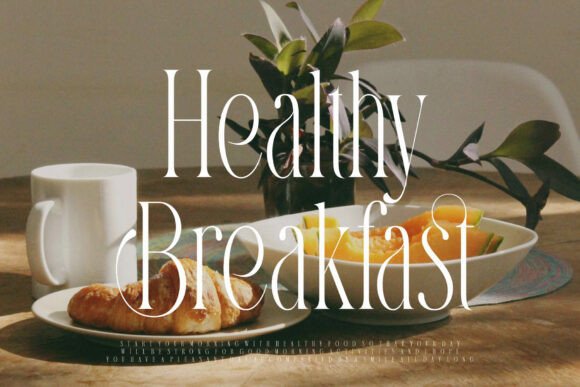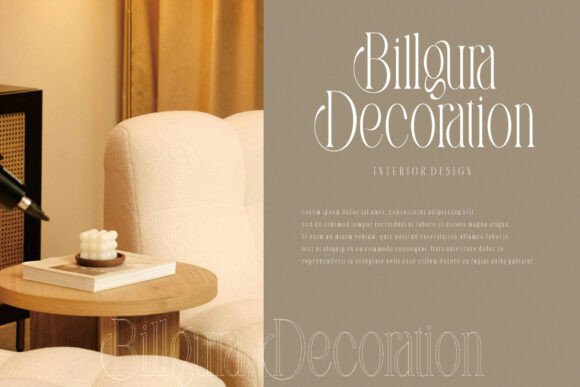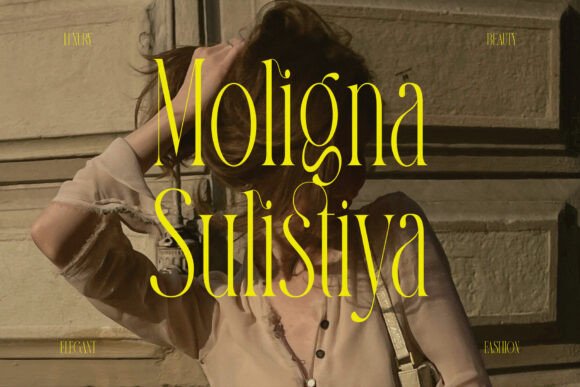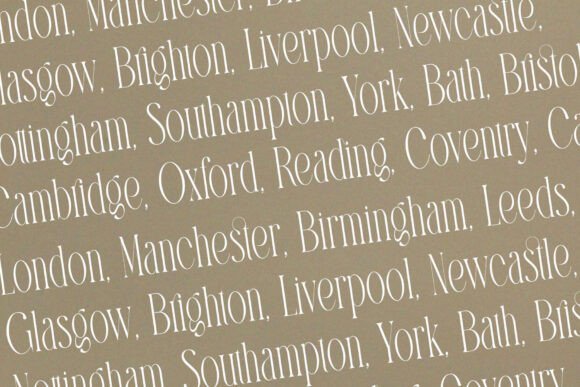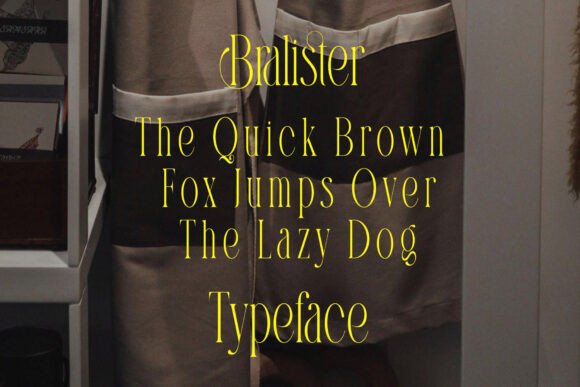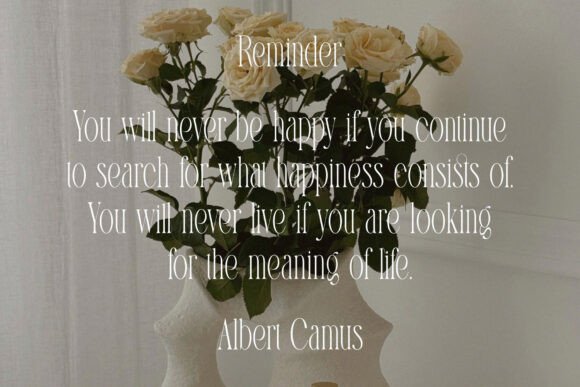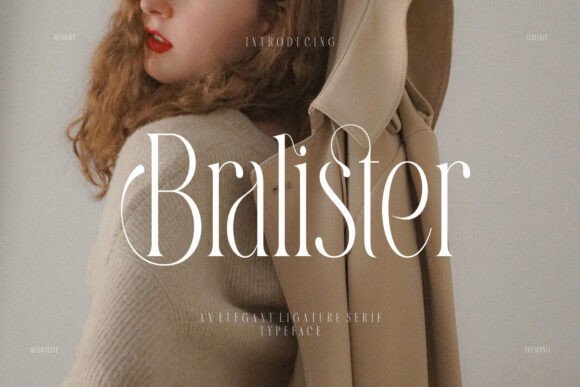
Bralister Font: Elevate Your Designs with Elegance and Sophistication
In the world of typography, a well-crafted font can make all the difference in elevating a design from ordinary to extraordinary. Introducing Bralister, an elegant ligature serif modern font that embodies the beauty of fresh blooms and timeless elegance. With its bold yet refined ligatures, Bralister stands out as a sophisticated and feminine typeface, perfect for upscale designs that demand a touch of refinement and natural grace.
The Beauty of Bralister
Bralister is a masterfully designed font that combines the charm of classic serif styles with a modern twist. Every letter feels intentional, with a soft and graceful presence that elevates any project it touches. The font’s elegant ligatures add a touch of sophistication, making it ideal for designs that require a high level of refinement. Whether you’re working on a floral arrangement, a fashion brand, or a high-end product, Bralister brings a level of elegance and poise that’s sure to impress.
Perfect for Upscale Designs
Bralister is specifically designed for upscale designs that demand a high level of sophistication. Its refined ligatures and classic serif style make it perfect for:
- Florals: Add a touch of elegance to your floral arrangements with Bralister’s beautiful ligatures and refined serif style.
- Fashion: Elevate your fashion brand with Bralister’s sophisticated and feminine typeface.
- High-end branding: Bring a level of refinement and natural grace to your high-end branding with Bralister’s elegant font.
What Sets Bralister Apart
So, what sets Bralister apart from other fonts? Here are a few key features that make it a standout:
- Elegant ligatures: Bralister’s bold yet refined ligatures add a touch of sophistication to any design.
- Classic serif style: Bralister’s classic serif style provides a sense of timeless elegance and refinement.
- Modern twist: Bralister’s modern twist sets it apart from traditional serif fonts, making it perfect for designs that demand a high level of sophistication.
Bringing Elegance to Your Designs
Bralister is more than just a font – it’s a design statement. With its elegant ligatures and refined serif style, Bralister brings a level of sophistication and refinement to any design. Whether you’re working on a logo, a brochure, or a website, Bralister is the perfect choice for designers and crafters who demand the best.
Why Choose Bralister?
Here are just a few reasons why Bralister is the perfect choice for your next design project:
- Unique and elegant: Bralister’s elegant ligatures and refined serif style make it a unique and elegant font that’s sure to stand out.
- Versatile: Bralister is perfect for a wide range of designs, from florals and fashion to high-end branding and more.
- Easy to use: Bralister is easy to use and pairs perfectly with a wide range of other fonts.
In conclusion, Bralister is a truly exceptional font that brings a level of elegance and sophistication to any design. With its elegant ligatures, refined serif style, and modern twist, Bralister is the perfect choice for designers and crafters who demand the best. Whether you’re working on a high-end brand, a fashion label, or a floral arrangement, Bralister is sure to elevate your design to new heights. So why wait? Try Bralister today and see the difference for yourself!